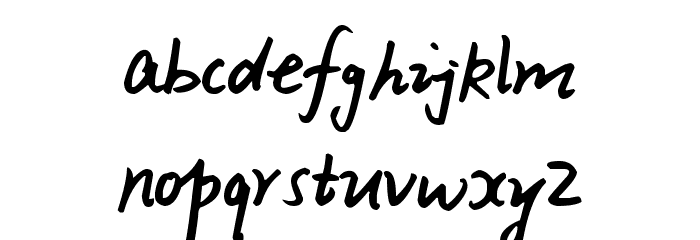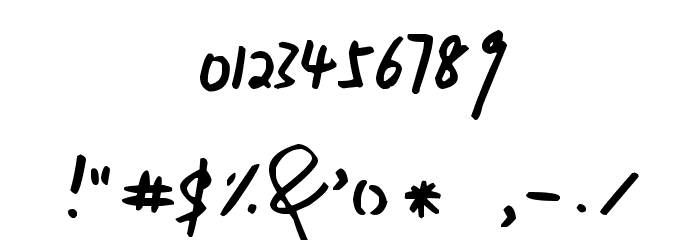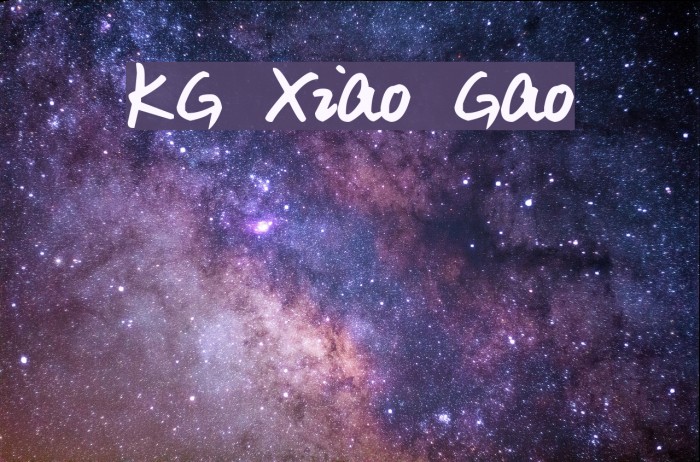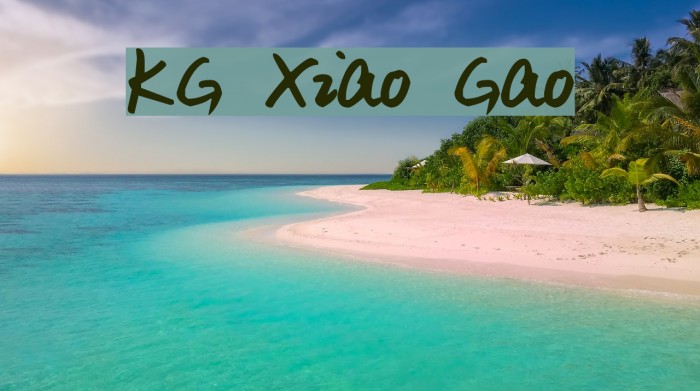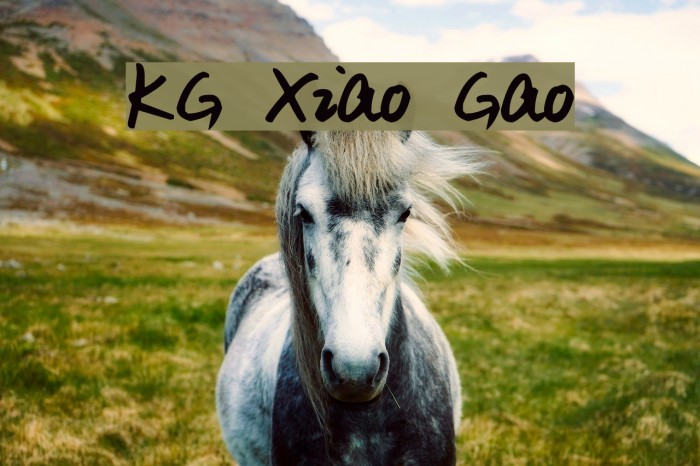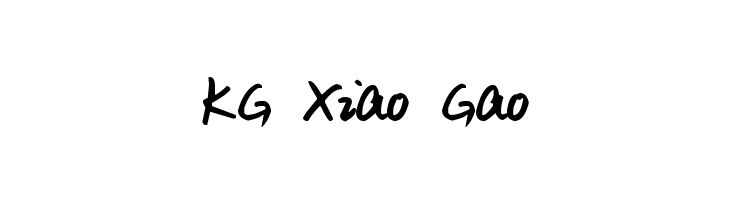
KG Xiao Gao Font
This font features a casual, handwritten style with a playful and informal appearance. The letters are slightly slanted, giving it a dynamic and lively feel. The strokes are uneven, mimicking the natural flow of handwriting, which adds a personal touch to the text. The uppercase letters are bold and prominent, while the lowercase letters maintain a consistent flow with a slightly smaller size. Numbers and special characters follow the same handwritten aesthetic, ensuring uniformity across all characters. The overall design is approachable and friendly, making it suitable for projects that require a human touch.
A casual, handwritten font with a playful and informal style.
- Proposed Projects: Ideal for greeting cards, personal notes, informal invitations, and creative projects that require a personal touch.
- Overall Style: Casual
- Use Case: Logos, Headlines, Informal Text